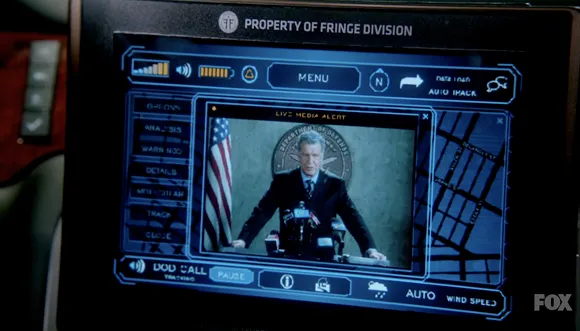
Klavika, Property of Fringe Division
Fringe Division
Fringe Division - Detail
As fans of J.J. Abrams, co-creator of the television show ‘Fringe,’ we were tickled by this tiny use of one of our typefaces in the show. From the episode ‘Everything in Its Right Place,’ the in-car communication and navigation system is branded the property of Fringe Division using Klavika, appropriately and soberly set in all caps.